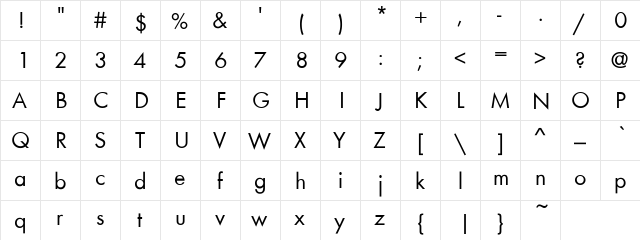
Futura-Normal Regular
Design Context for Futura-Normal Typeface
Futura-Normal has a distinctly futuristic character, with geometric precision and clean angles that feel at home in technology, gaming, and sci-fi contexts.
Pro Tip: Try Futura-Normal with generous letter-spacing in UI labels and navigation — the geometric forms benefit from room to breathe.